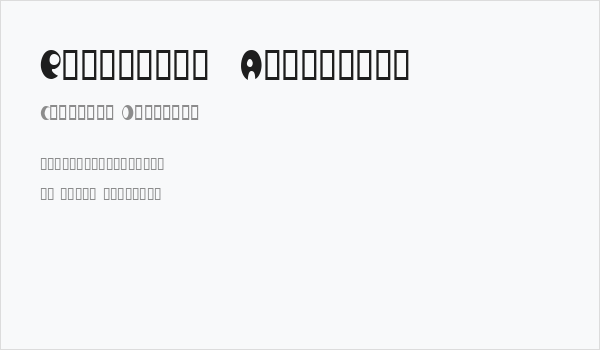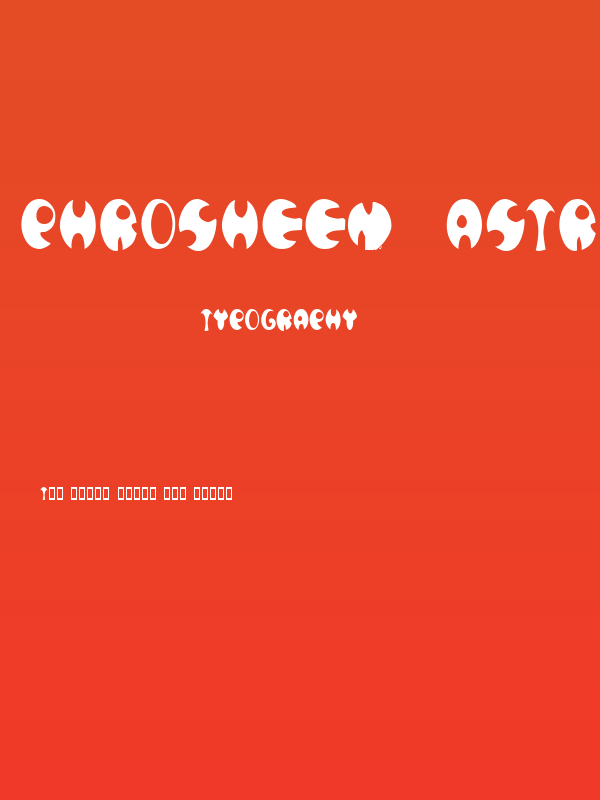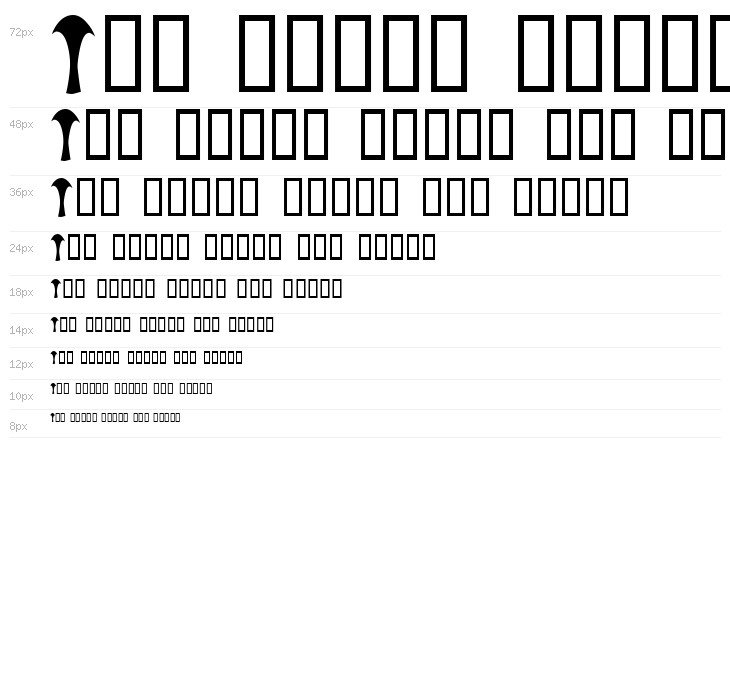
Phrosheen Astrotype Font
Phrosheen Astrotype Description
This font features a bold and playful design with a futuristic and abstract aesthetic. Each character is uniquely crafted with circular and crescent shapes, creating a sense of movement and dynamism. The uppercase letters are particularly striking, with their thick strokes and geometric forms. The font lacks lowercase letters and numbers, focusing instead on a strong visual impact. Its distinct style makes it ideal for creative and modern projects that require a standout typeface.
| Proposed Projects | Ideal for sci-fi themed posters, modern branding, album covers, and digital art projects. |